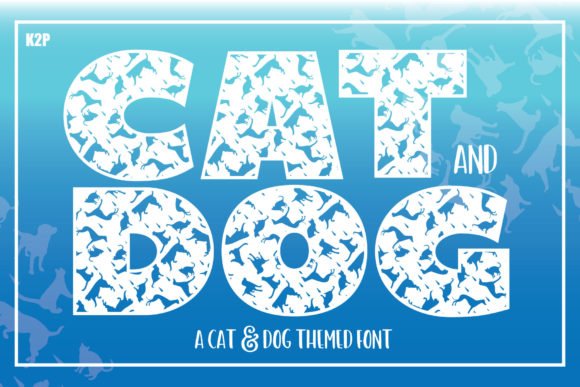
Get Ready to Purr-fect Your Designs with the Cat and Dog Font
As a designer, have you ever stumbled upon that perfect font that just makes your creative juices flow? For me, it’s those moments when the entire design falls into place, and I know I’ve found something special. I recall working on a children’s game project, searching for the perfect font to give it that playful touch. That’s when I discovered the Cat and Dog Font – a thick lettered, decorative font that instantly stole my heart.
The Cat and Dog Font is a unique and versatile font that’s perfect for various design ideas, especially those related to children’s games and school. With its PUA encoding, accessing all the glyphs and swashes is a breeze. This font is a valuable addition to any designer’s toolkit, offering endless possibilities for creative expression. Whether you’re working on a new project or looking to add a playful touch to an existing design, the Cat and Dog Font is sure to delight.
Cat and Dog Font Key Features
- Unique Characteristics: The Cat and Dog Font features a playful, hand-drawn design with intricate details, making it perfect for children’s books, educational materials, and other projects requiring a whimsical touch.
- Character Set: The font includes a comprehensive character set, including uppercase and lowercase letters, numbers, punctuation marks, and special characters, ensuring versatility in design applications.
Designer Review: Cat and Dog Font
Overall, I think the Cat and Dog Font is a cute and playful addition to any design project. Here’s what I like about it:
- ✨ Unique and whimsical design that can add a touch of personality to any text
- ✨ Wide range of character sets, including uppercase and lowercase letters, numbers, and punctuation
- ✨ Easy to read and recognize, even in smaller font sizes
However, there are some limitations to keep in mind:
- ⚠️ Limited language support, which may not be suitable for projects that require multilingual text
- ⚠️ Not ideal for professional or formal designs, as it may come across as too casual or childish
- ⚠️ Some characters may not be consistent in their design, which can affect the overall look and feel of the text
Overall, I think the Cat and Dog Font is a fun and quirky option for designers who want to add some personality to their projects. However, it may not be the best choice for every project, and designers should carefully consider the limitations before using it.
The Cat and Dog Font is perfect for:
- Children’s book covers and illustrations.
- Pet-related designs and graphics.
- Playful and whimsical designs.